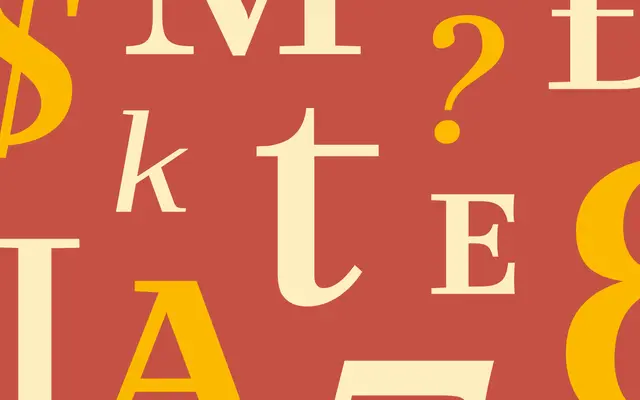
Dedica
Dalton Maag · Bruno Maag · 2024
Dedica specimen from Dalton Maag
A compact display serif by Bruno Maag with pronounced asymmetric serifs, drawn to lift headline and identity work with charm and elegance.
A display serif by Bruno Maag built around pronounced asymmetric serifs that give the family its signature voice. Three styles, Regular, Italic and Bold, keep the system compact while staying flexible enough for headlines, mastheads and identity systems. Useful where a brand wants warmth and elegance without slipping into pure transitional or didone territory.
Dalton Maag describe Dedica as a unique and distinctive serif featuring pronounced asymmetric serifs, a compact family designed to elevate headline and display work with charm and elegance.